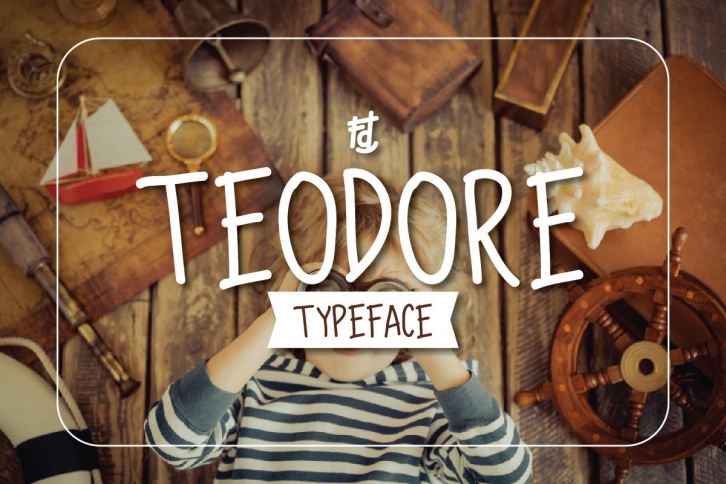
Introducing Teodore, simple and fun handwritten typeface. Bring more fun and casual looks to your design. It's perfect for greeting cards, events, branding and any of casual and fun projects.